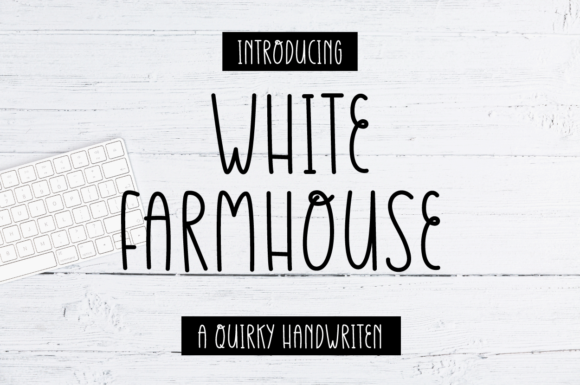
Introducing White Farmhouse Font: The Unconventional Script Font That Will Transform Your Designs
White Farmhouse Font is a masterclass in graceful individuality. Its airy and lively strokes will add a playful touch to your creative projects, leaving a lasting impression on your audience. Imagine your words dancing across the page, enveloped in the effortless charm of White Farmhouse Font. Say goodbye to boring, conventional fonts and embrace the beauty of handwritten elegance.
Unlimited Creative Horizons: From Book Covers to Greeting Cards
White Farmhouse Font is an artistic chameleon, effortlessly adapting to diverse design landscapes. Whether you're crafting book covers that exude a timeless charm or designing greeting cards that radiate warmth and joy, White Farmhouse Font will elevate your creations. Its versatility extends to logos, business cards, and any project yearning for a touch of artistic flair.
Immerse Yourself in a World of Elegance and Artistry
With White Farmhouse Font as your creative companion, you'll discover a world of artistic possibilities. Let your imagination soar as you create thank you cards that express gratitude with a personal touch. Design quotes that resonate with heartfelt emotions, capturing the essence of life's precious moments. White Farmhouse Font will transform your words into visual masterpieces, leaving an indelible mark on the hearts of your readers.
Ignite Your Passion with White Farmhouse Font
Unlock your creative potential with White Farmhouse Font. Its user-friendly nature makes it accessible to designers of all skill levels, while its captivating handwritten style adds a touch of sophistication to any project. Don't let conventional fonts stifle your creativity; embrace the uniqueness of White Farmhouse Font and watch your designs transform into works of art.